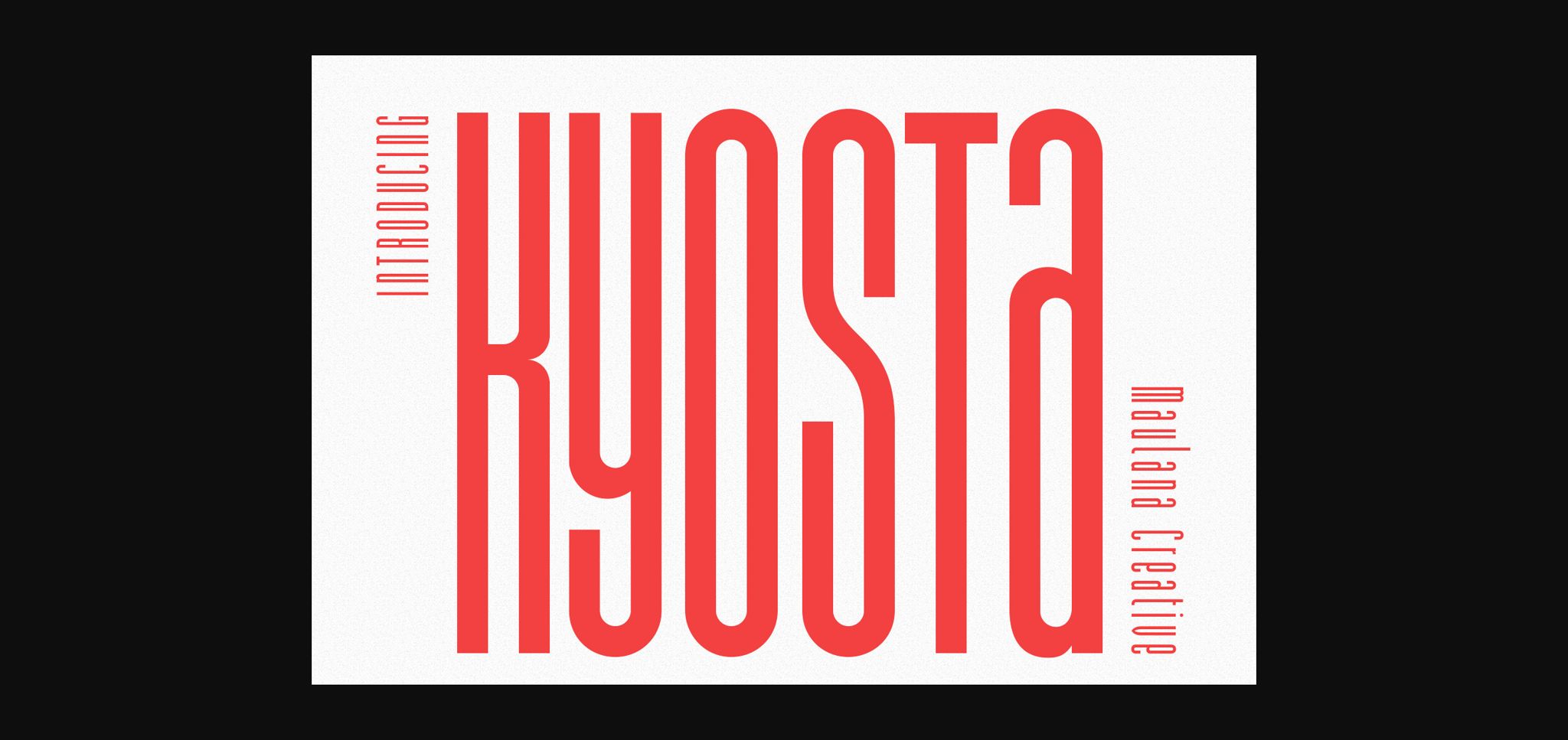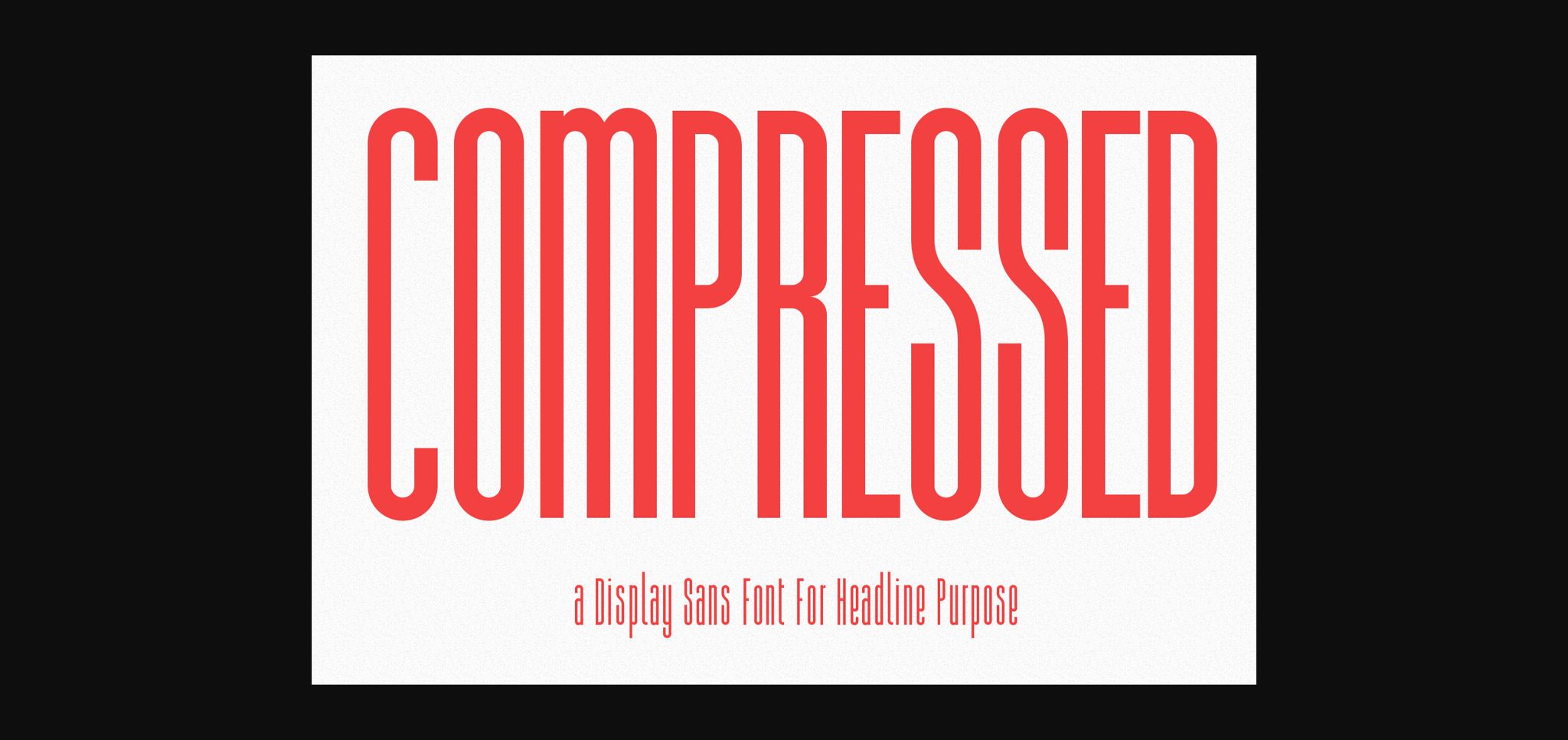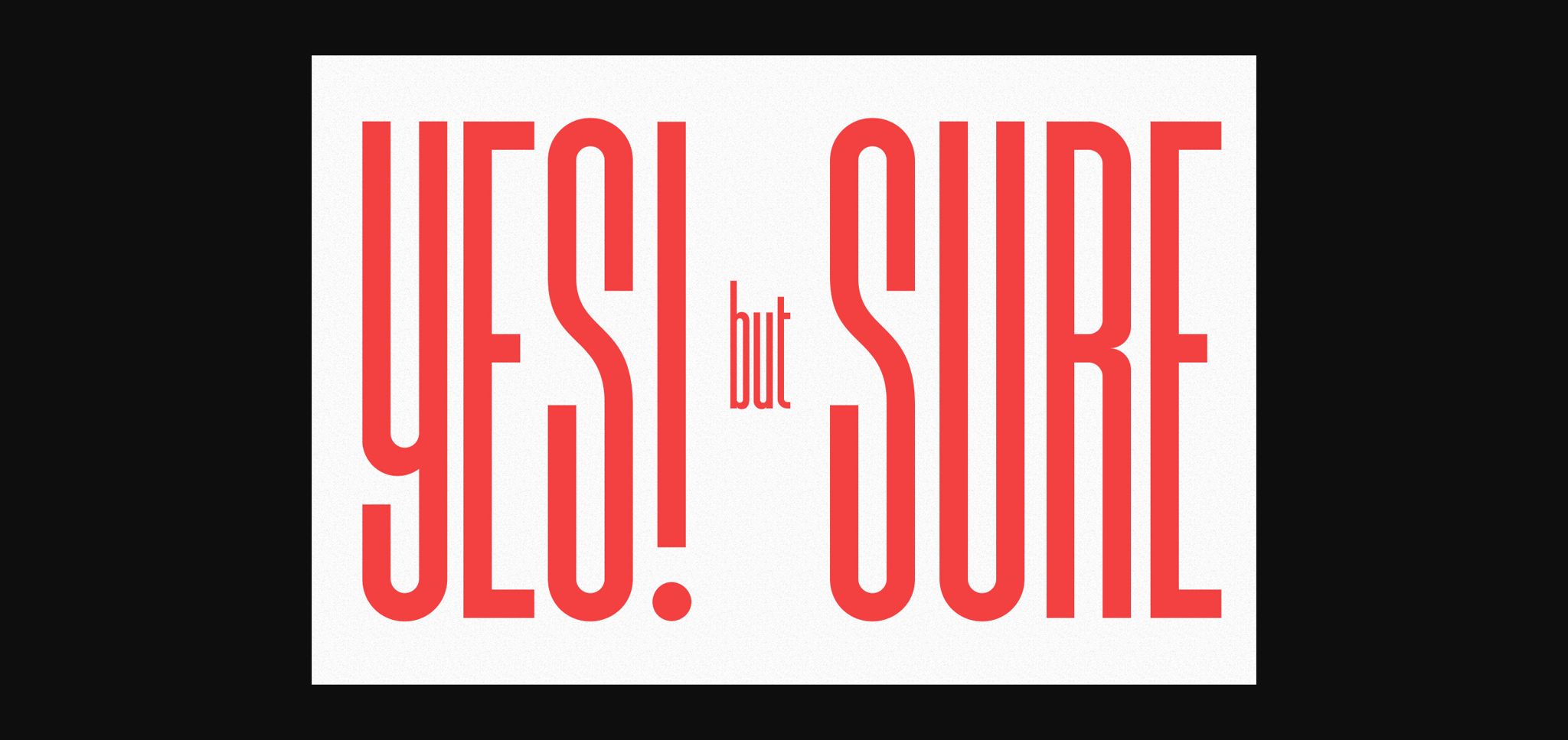
About Kyosta Font
Kyosta Compressed Sans Font
Kyosta is a tall compressed sans display font. Regular stroke, fun character with a bit of ligatures and stylistic. To give you an extra creative work. Kyosta font support multilingual more than 100+ language. This font is good for logo design, Social media, Movie Titles, Books Titles, a short text even a long text letter and good for your secondary text font with script or serif. Make a stunning work with Kyosta font.